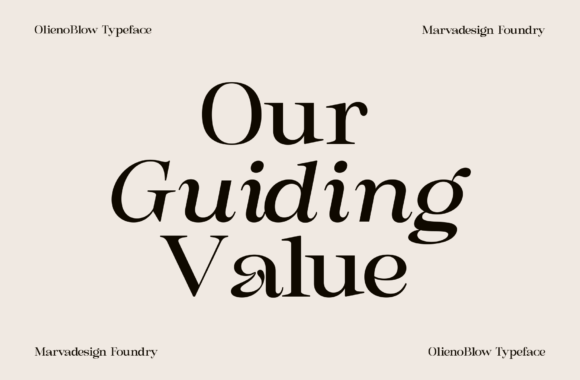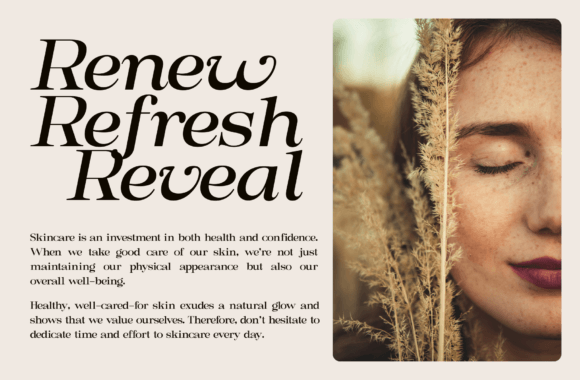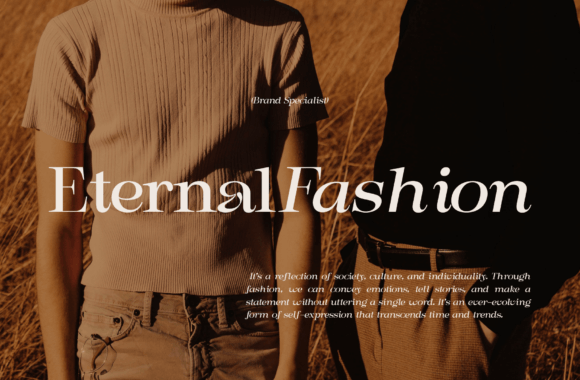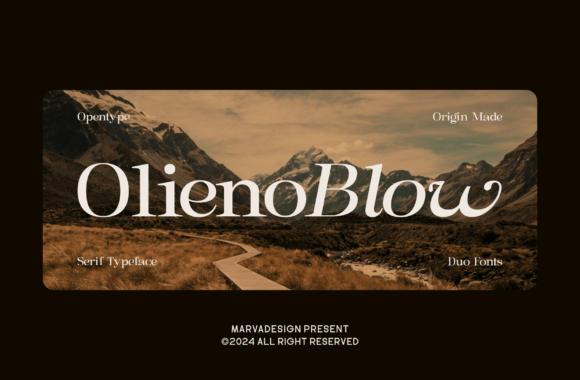
Introduction to Olieno Blow Font
**Olieno Blow** regular has an upright appearance with often overlapping ends.
The vertical lines are upright and consistent, while the horizontal lines are soft and tend to curve This font displays a formal and classic impression with a slight modern touch.